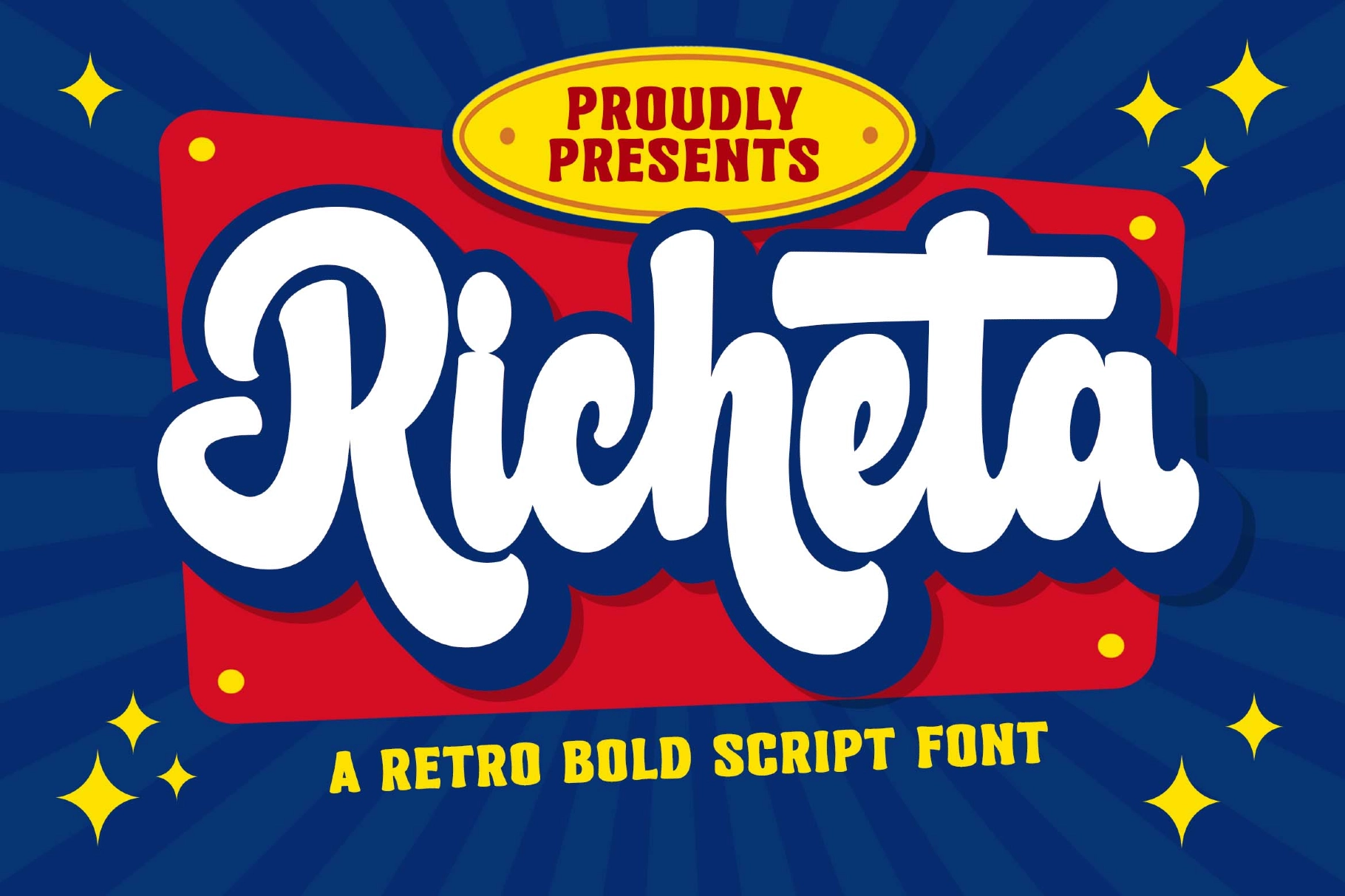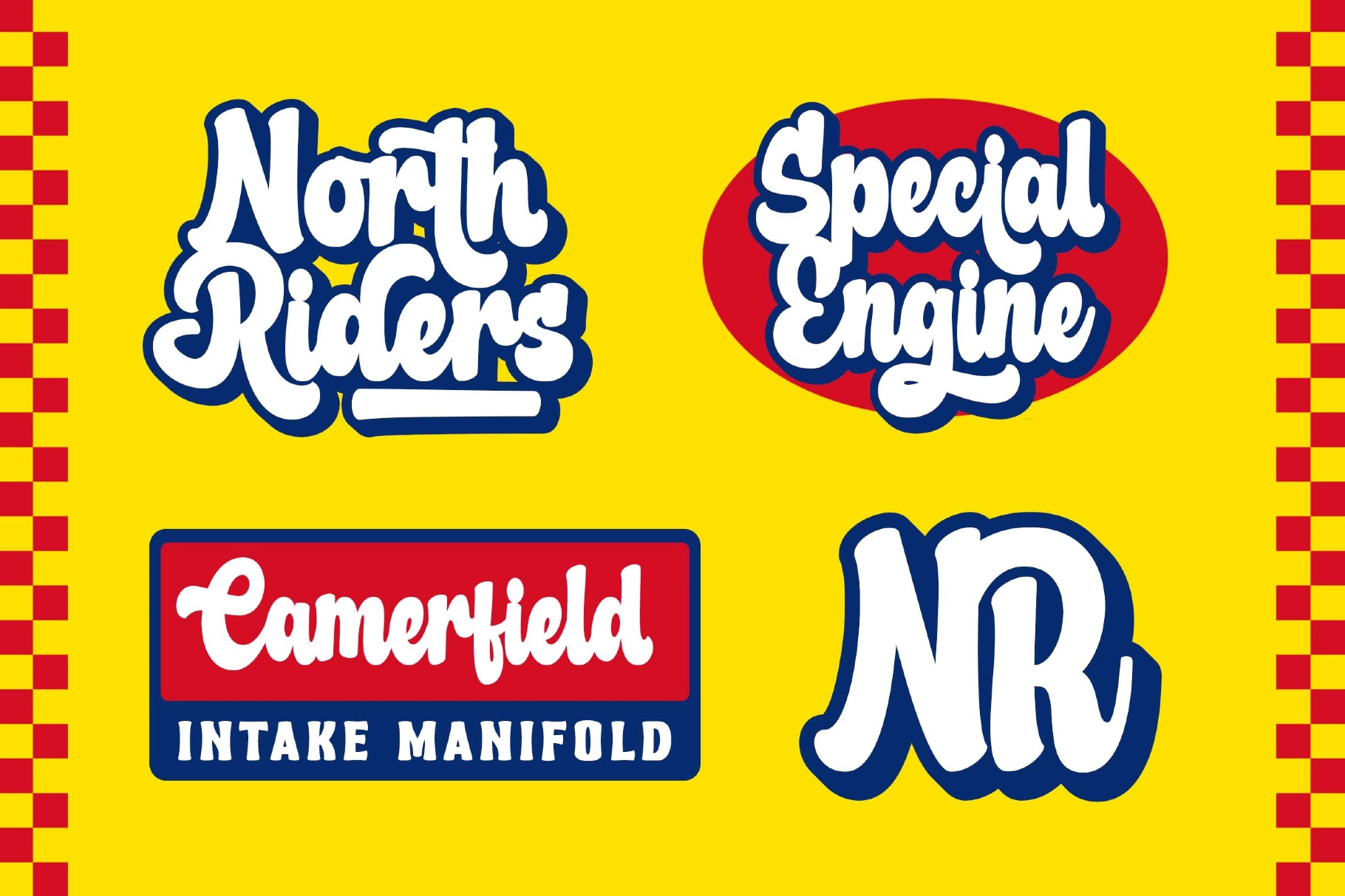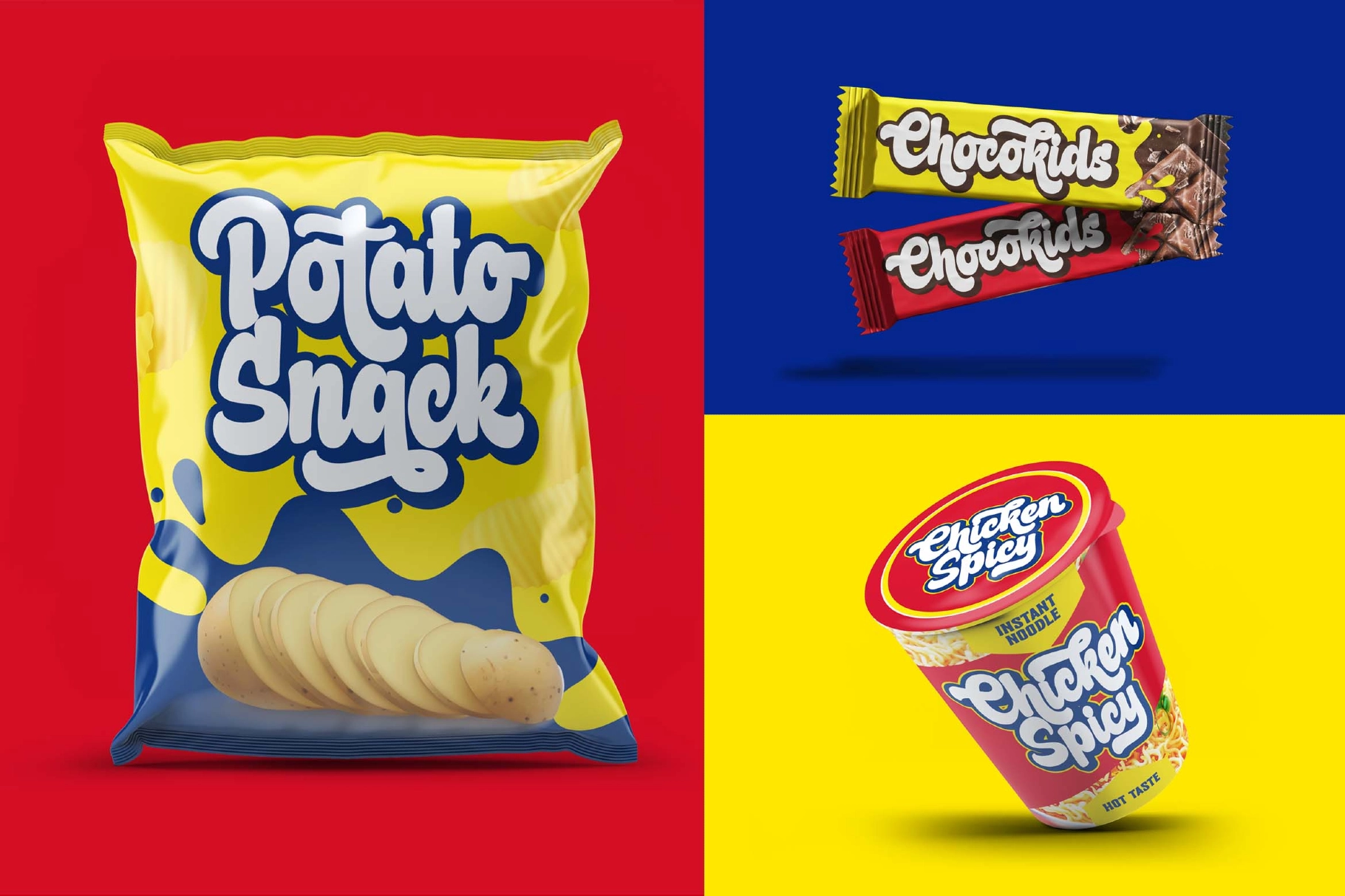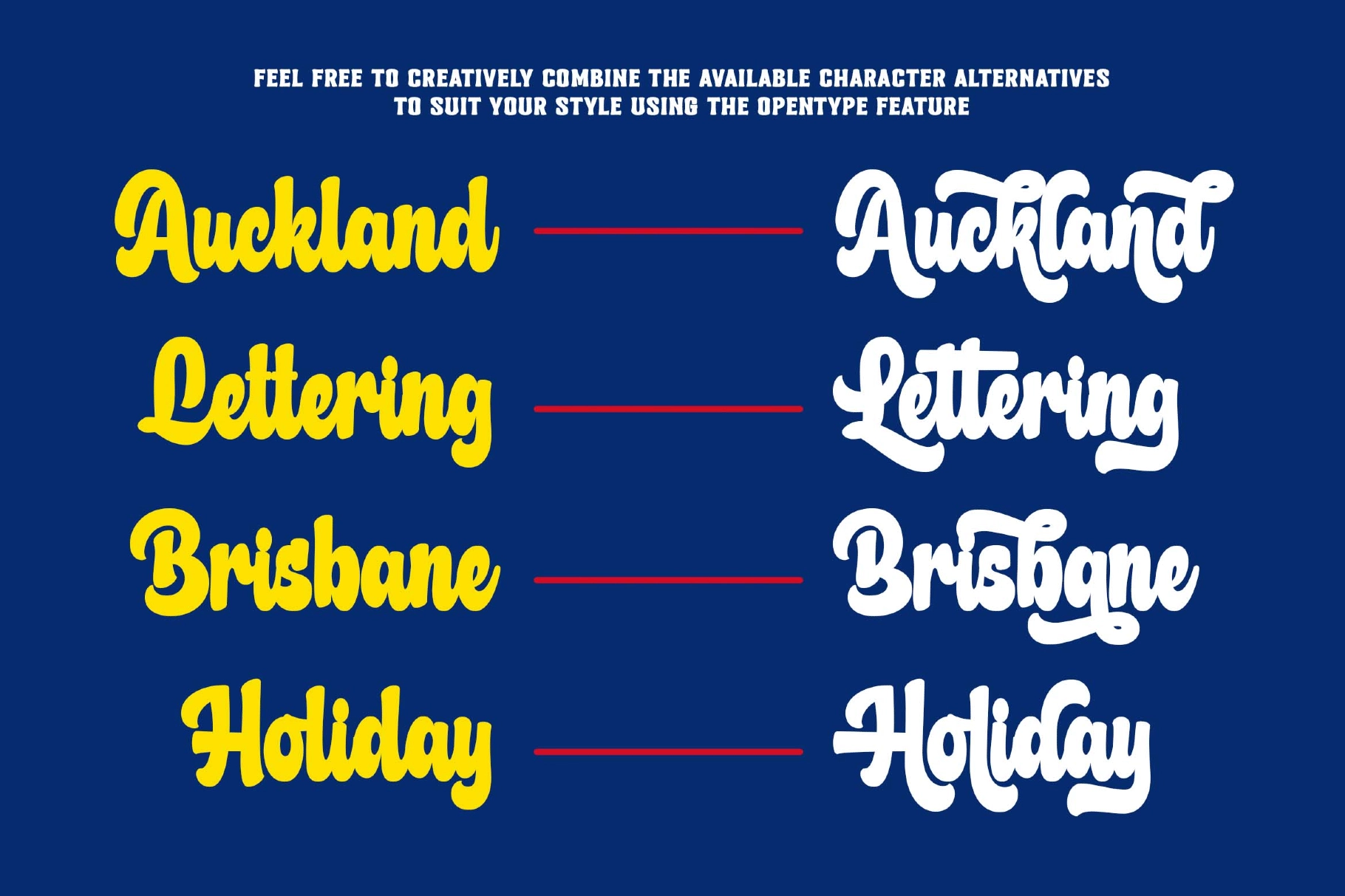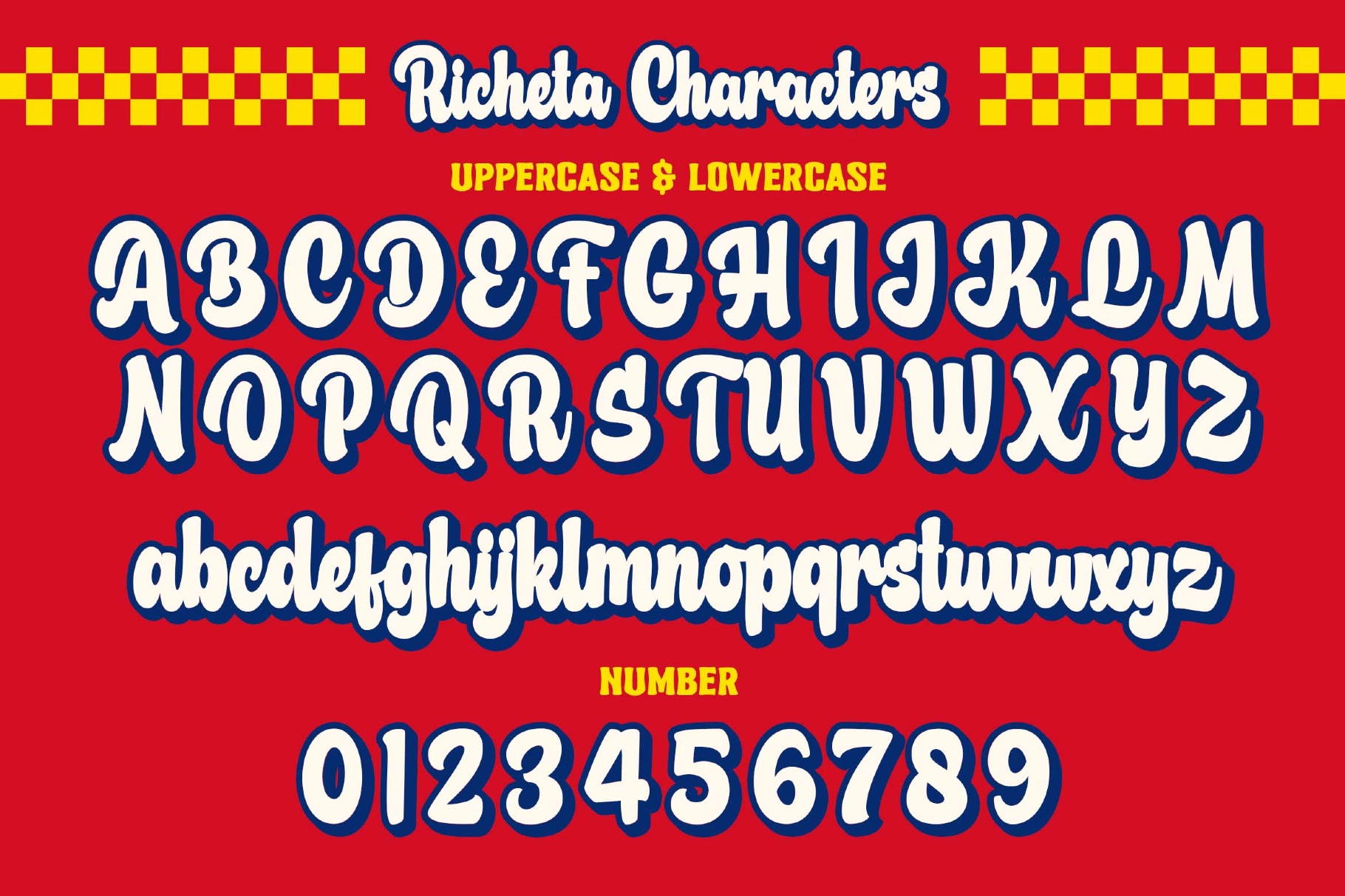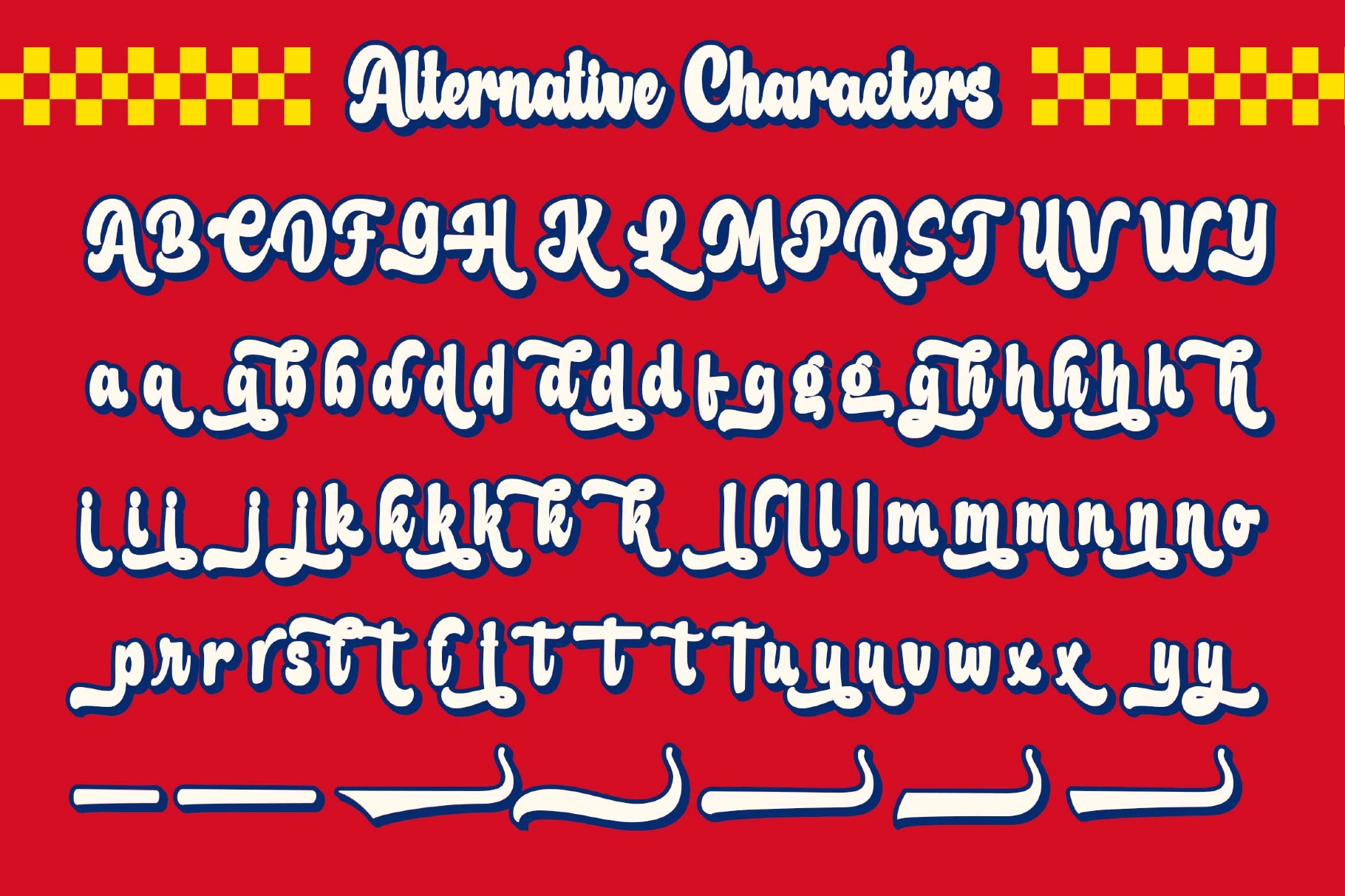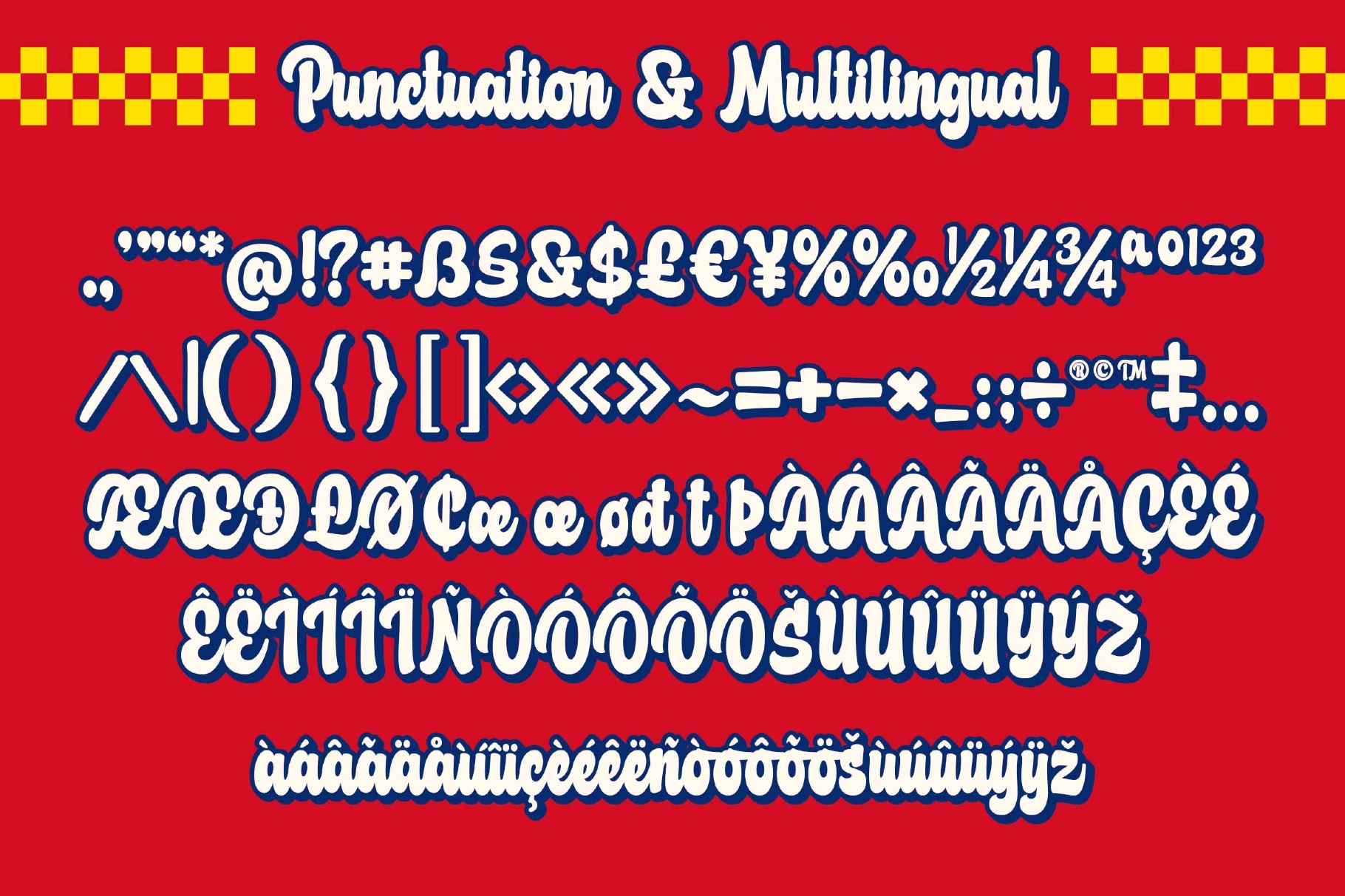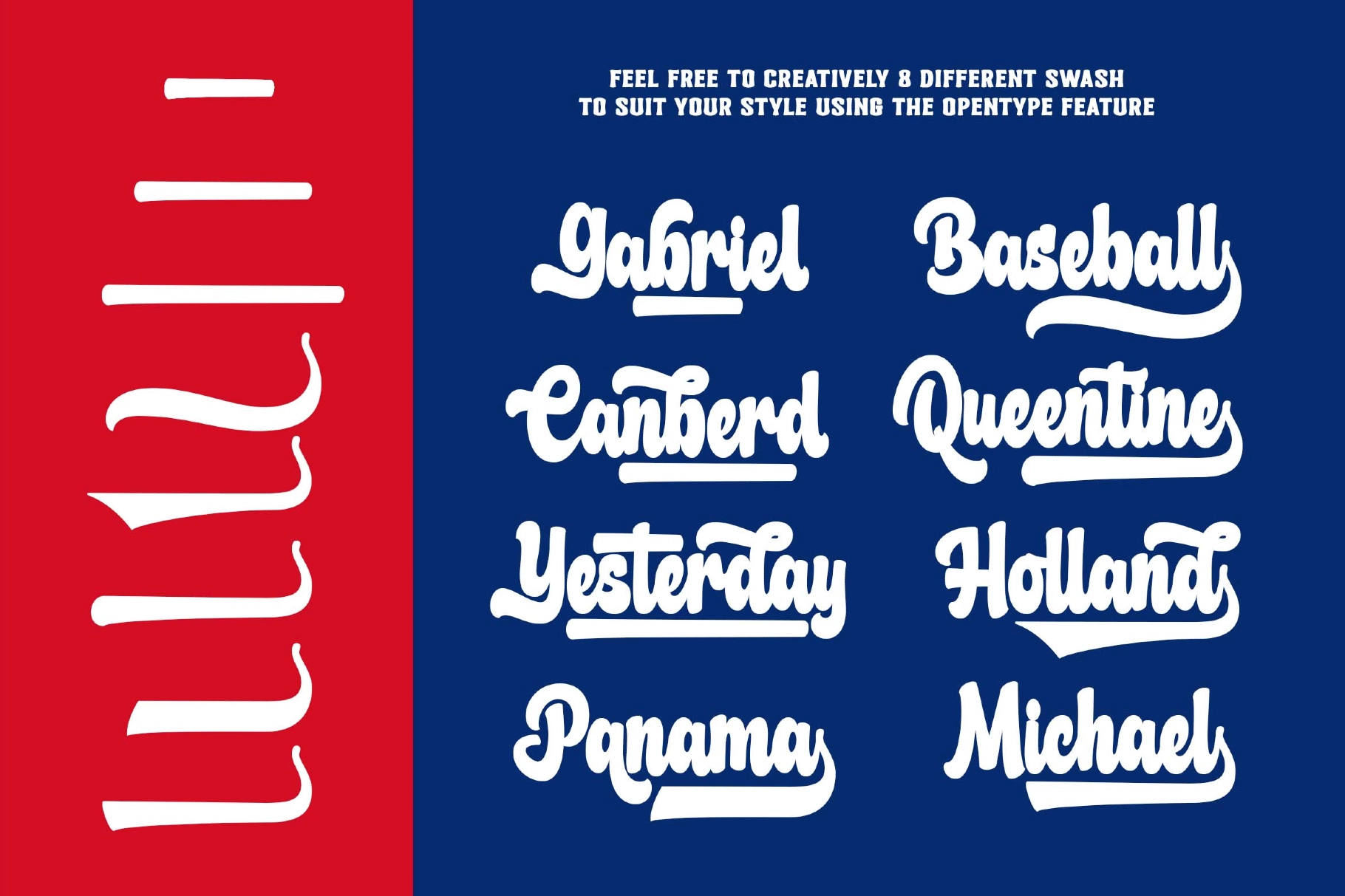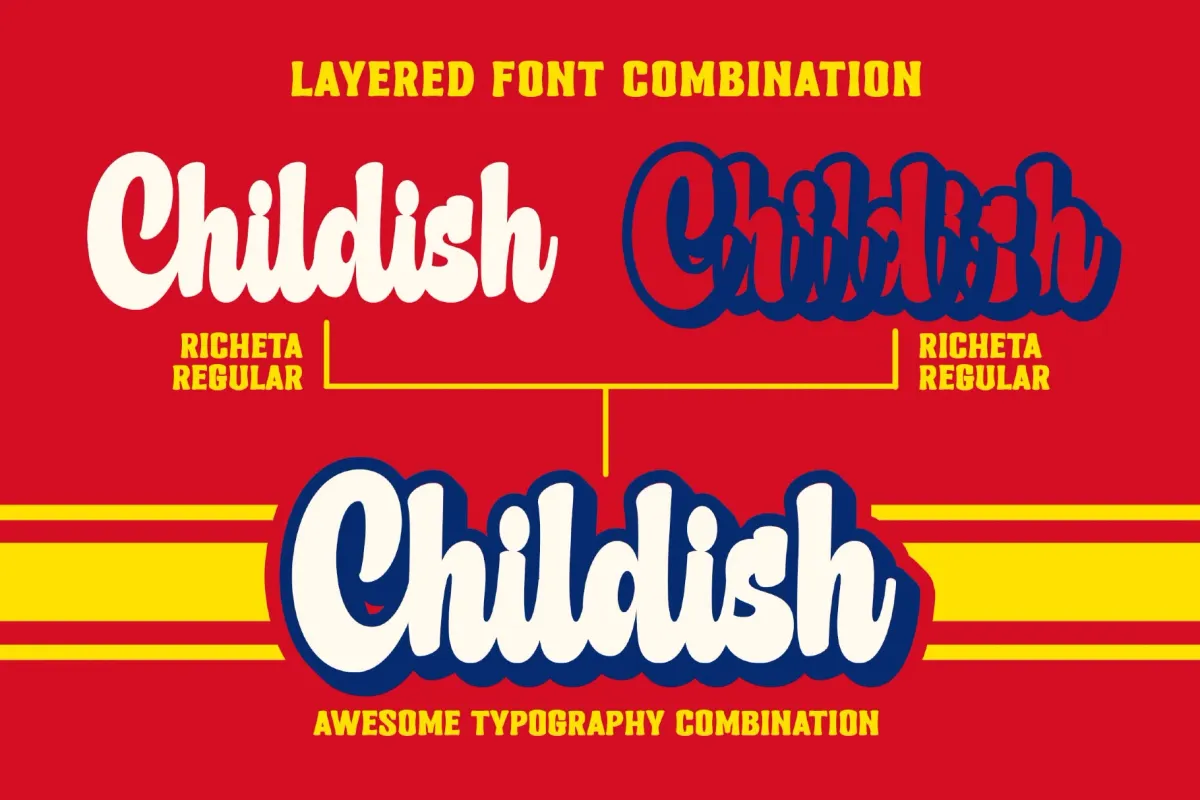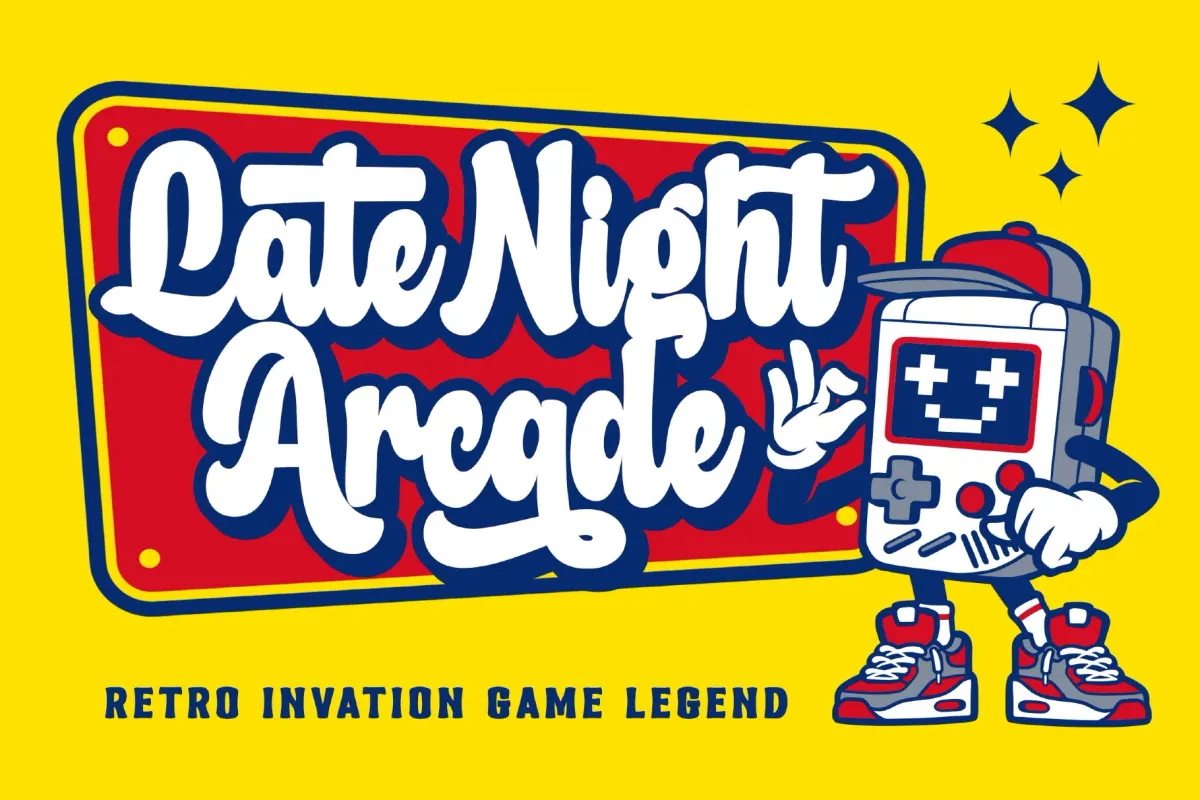
Richeta a Retro Bold Script Font
Richeta
Richeta a Retro Bold Script Font designed to bring playful vintage energy into modern branding. With its thick rounded strokes, smooth curves, and nostalgic flair, every letter feels lively and expressive — perfect for projects that need charm and personality.
Created as a versatile font combination, Richeta works beautifully for logotypes, packaging, posters, merchandise, watermarks, and promotional graphics. The layered style option allows you to build eye-catching retro typography with depth and dimension, making your designs stand out instantly.
- Retro bold script style
- Playful vintage character design
- Uppercase & lowercase
- Layered font combination
- Perfect for branding & packaging